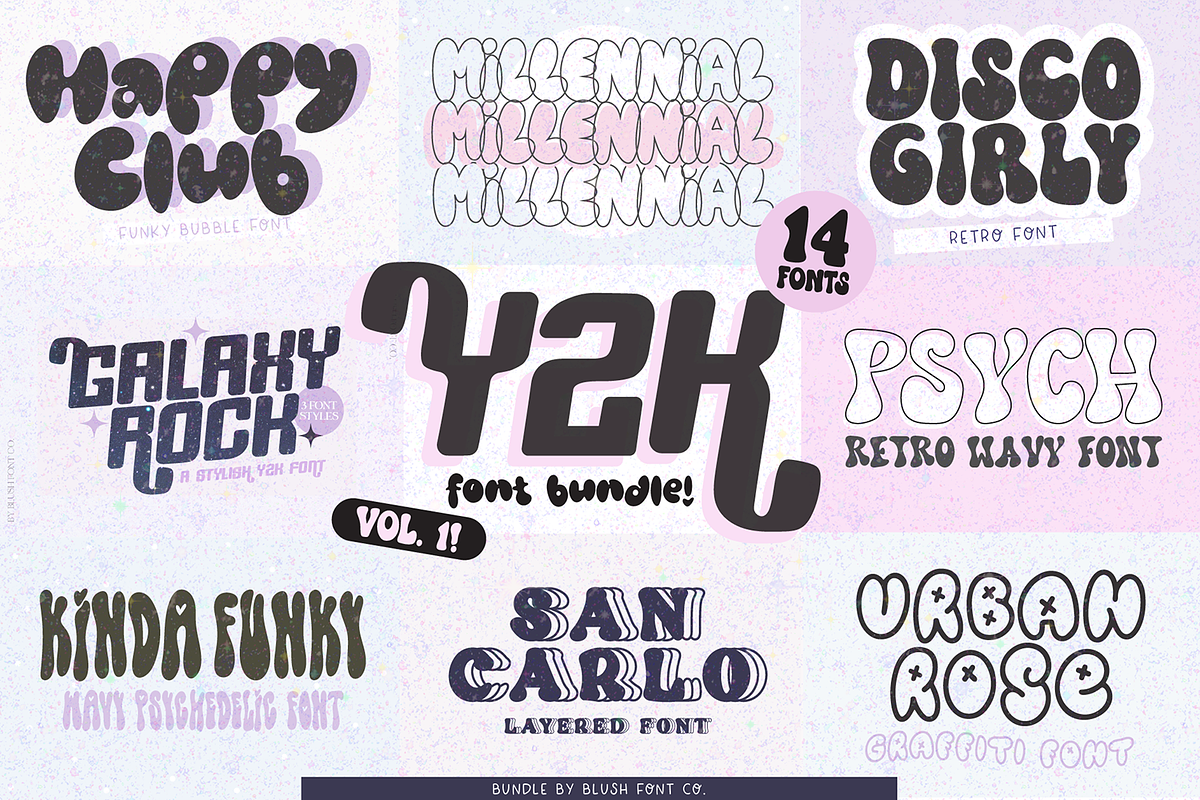
Y2K FONT BUNDLE-Stylish Retro Fonts Free Download
Y2K Font Bundle – Stylish Retro Fonts Free Download is a bold and energetic collection of fonts inspired by the iconic aesthetics of the early 2000s. Please note: you must purchase this font for commercial use, but you can test it through a free download. With metallic edges, bubble shapes, cyber vibes, and funky details, this bundle is perfect for streetwear branding, rave posters, album covers, stickers, and nostalgic social media content.
Each font in the bundle channels that futuristic-meets-pop era of design, giving you endless creative possibilities. Whether you're crafting a bold logo or designing vibrant merch, Y2K Font Bundle – Stylish Retro Fonts Free Download delivers instant throwback cool with a modern twist. Fully compatible with Adobe Illustrator, Photoshop, Canva, and more. Download it today for personal use and power up your projects with this unforgettable blast from the past.